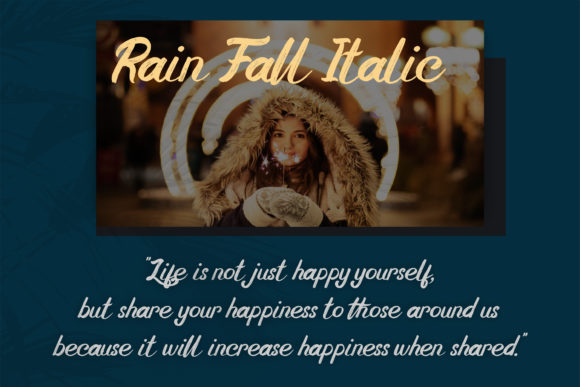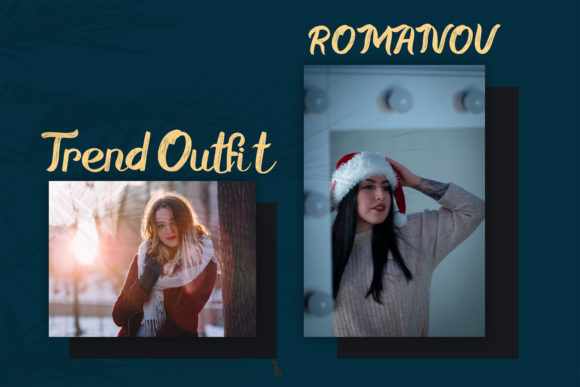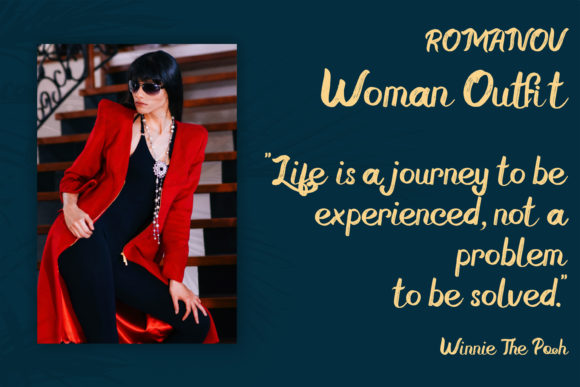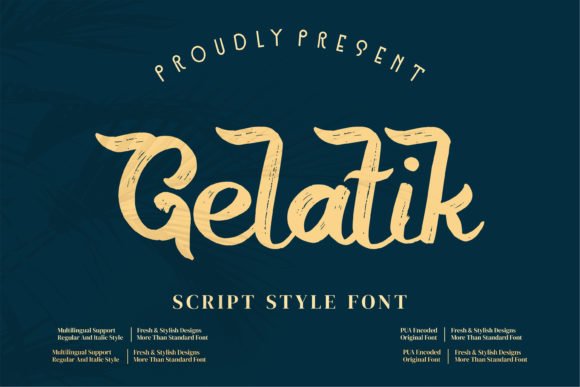
Introduction to Gelatik Font
Gelatik is a modern handwritten font suitable for any projects such as logos, branding projects, homeware designs, product packaging, mugs, quotes, posters, shopping bags, t-shirts, book covers, name cards, invitation cards, greeting cards, labels, photography, watermark, special events, and all your other luxury projects that need a premium signature taste.
Gelatik is a modern handwritten font suitable for any projects such as logos, branding projects, homeware designs, product packaging, mugs, quotes, posters, shopping bags, t-shirts, book covers, name
Key Features of Gelatik Font
Why Choose Gelatik Font?